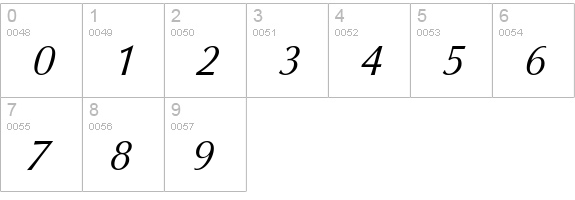
ColumbiaSerial-Light-Italic is a refined, elegant, italic variant in the ColumbiaSerial typeface family \xE2\x80\x94 well suited to elegant body text, refined sub-headings, and luxury branding.
ColumbiaSerial-Light-Italic is a sleek and modern typeface that exudes elegance and sophistication. Its delicate and slanted design lends a touch of refinement to any project, making it perfect for use in branding, advertising, and editorial design. The italicized letterforms add a sense of motion and fluidity to the text, creating a dynamic and engaging visual experience for the reader. The ColumbiaSerial-Light-Italic font is available for free download at FontsMarket.com, making it easily accessible for designers and creatives looking to elevate their work with a touch of class. Whether you're designing a logo, crafting a magazine layout, or creating a stylish social media graphic, ColumbiaSerial-Light-Italic is sure to make a lasting impression with its unique and sophisticated aesthetic. Download it now and add a touch of elegance to your next project!